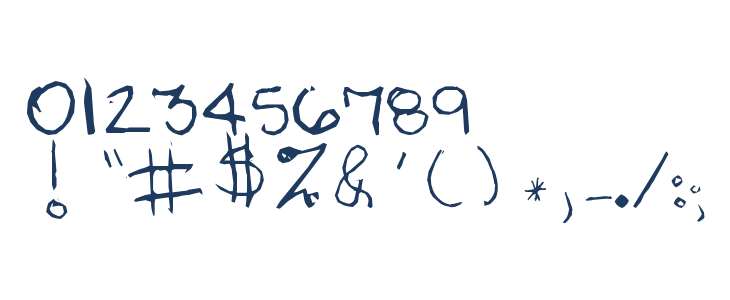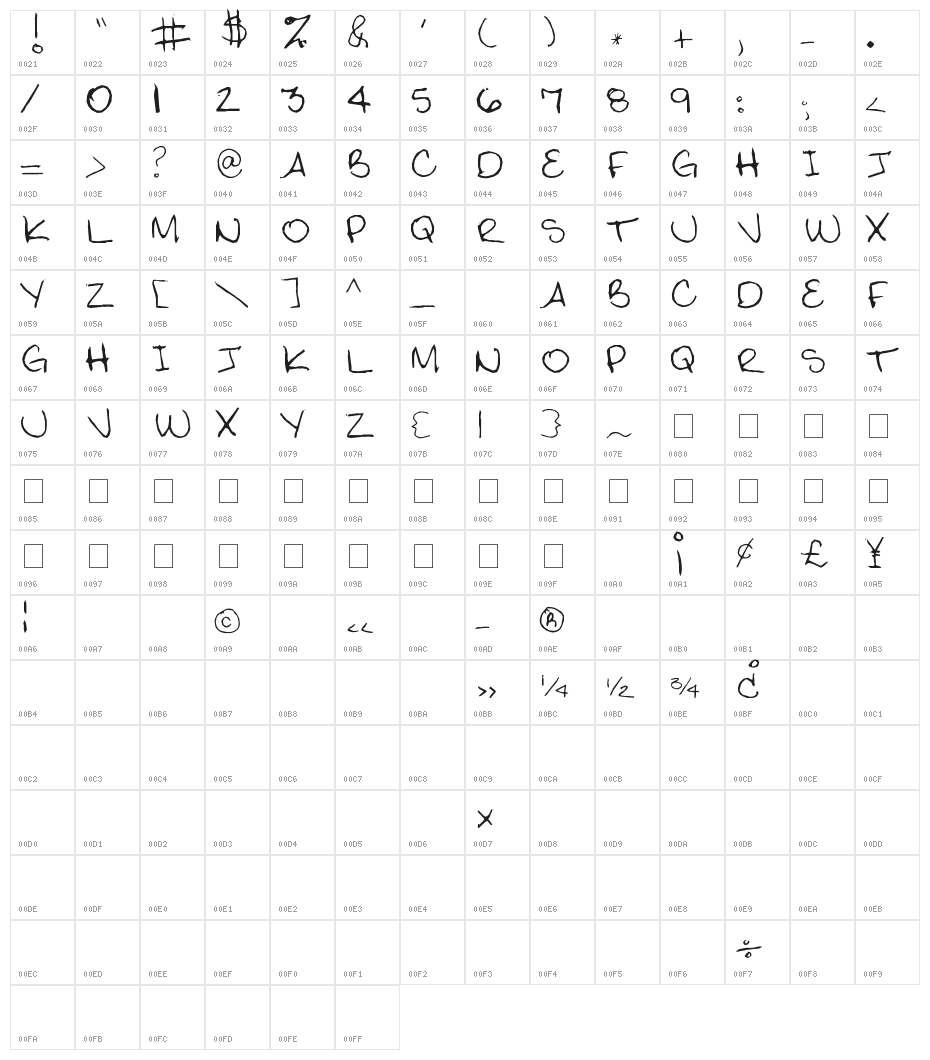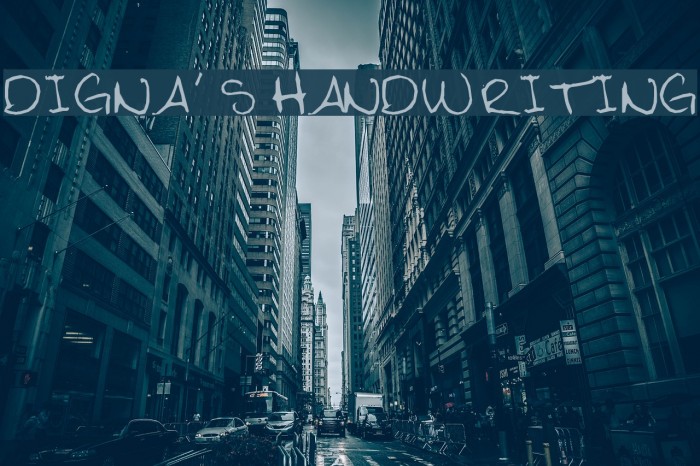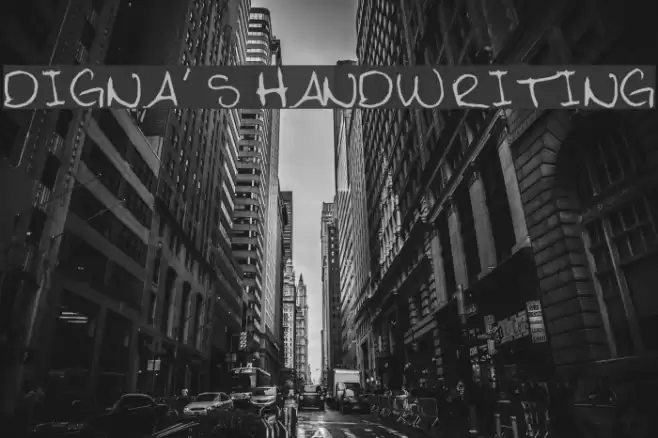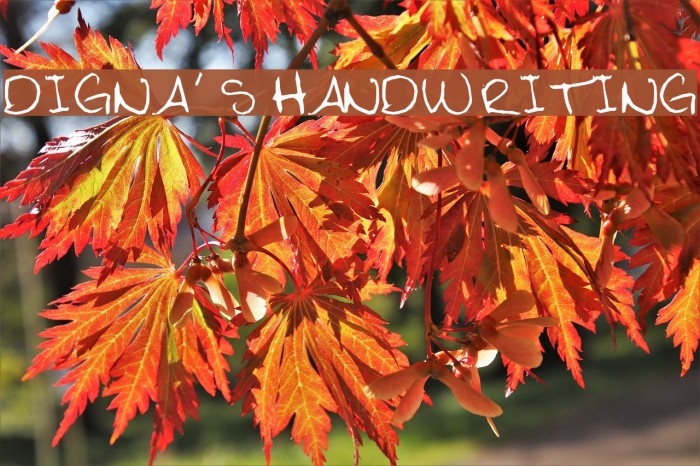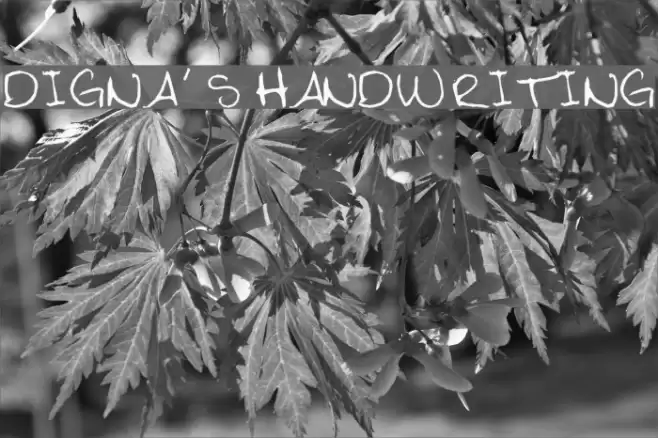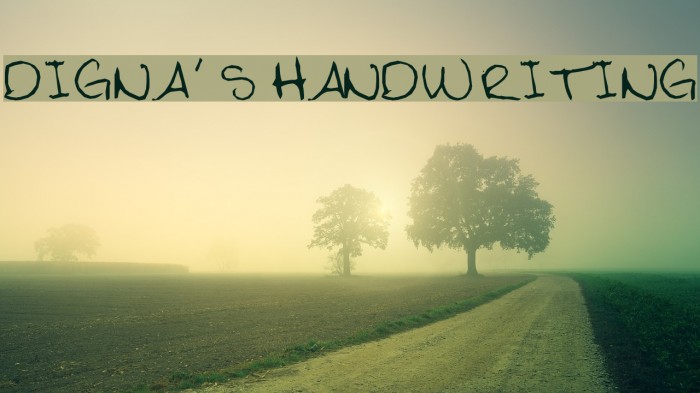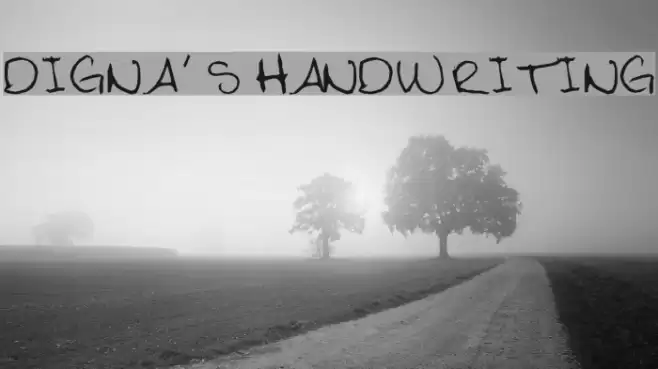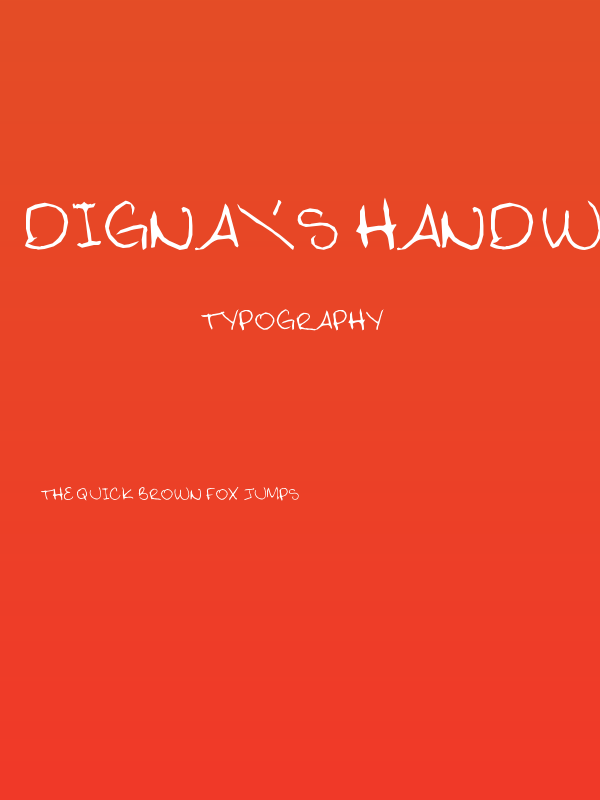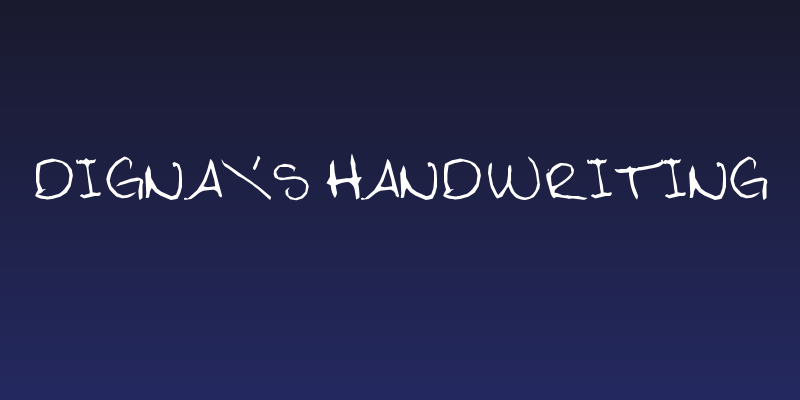
Digna's Handwriting Font
Digna's Handwriting Description
This font exudes a casual, handwritten style with a playful and slightly chaotic appearance. The letters are unevenly spaced, with varying stroke thickness that adds to its dynamic and energetic feel. The uppercase and lowercase characters maintain a consistent style, with a noticeable slant and irregular baseline that mimics natural handwriting. The numerals and special characters follow the same aesthetic, contributing to a cohesive look. This font is perfect for projects that require a personal touch or an informal vibe, such as greeting cards, invitations, or creative branding.
| Use Case | Headlines, Creative projects, Informal text |
| Proposed Projects | Ideal for greeting cards, invitations, personal branding, and creative projects. |